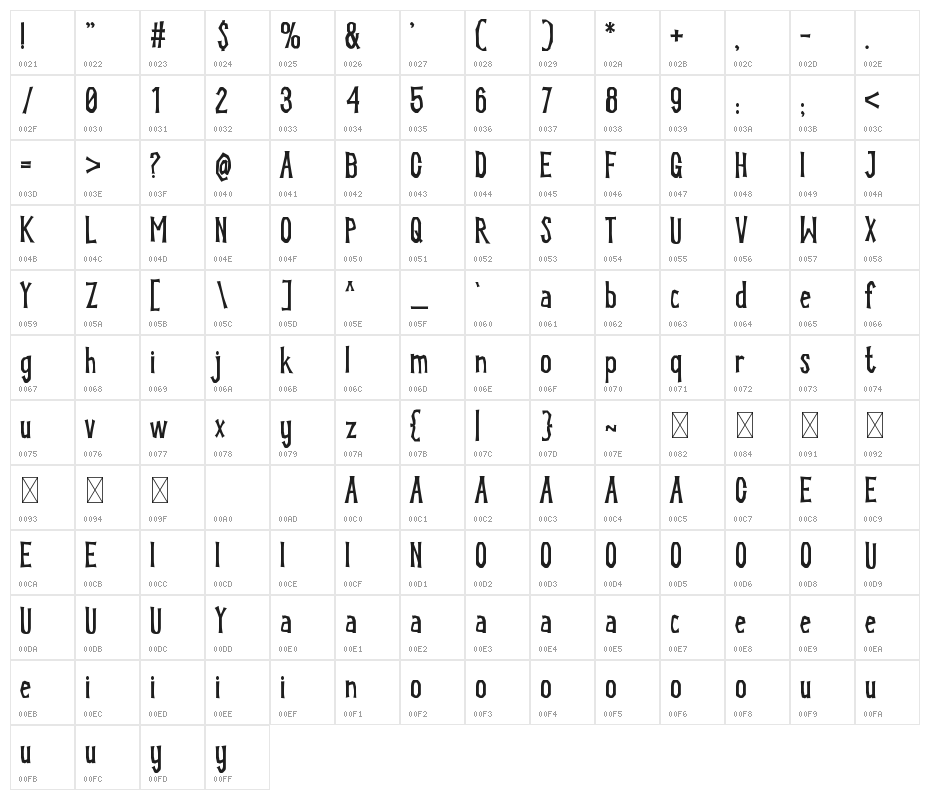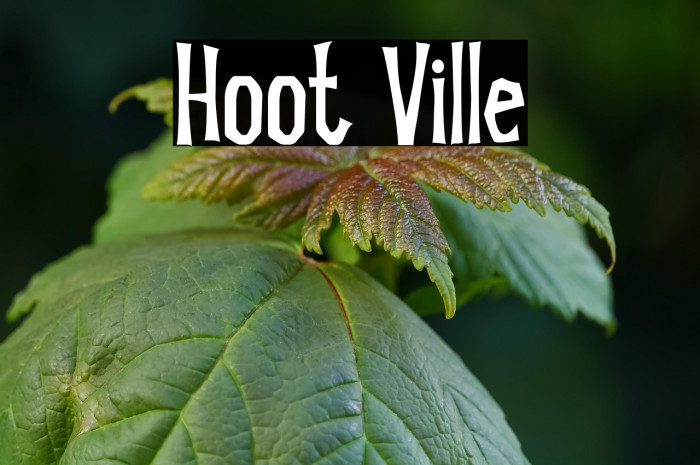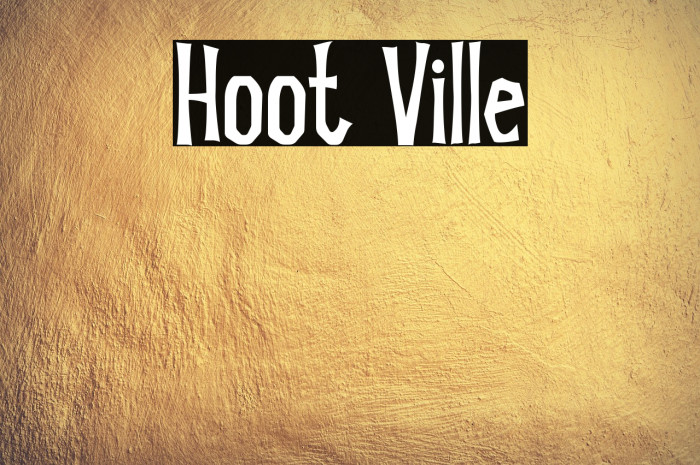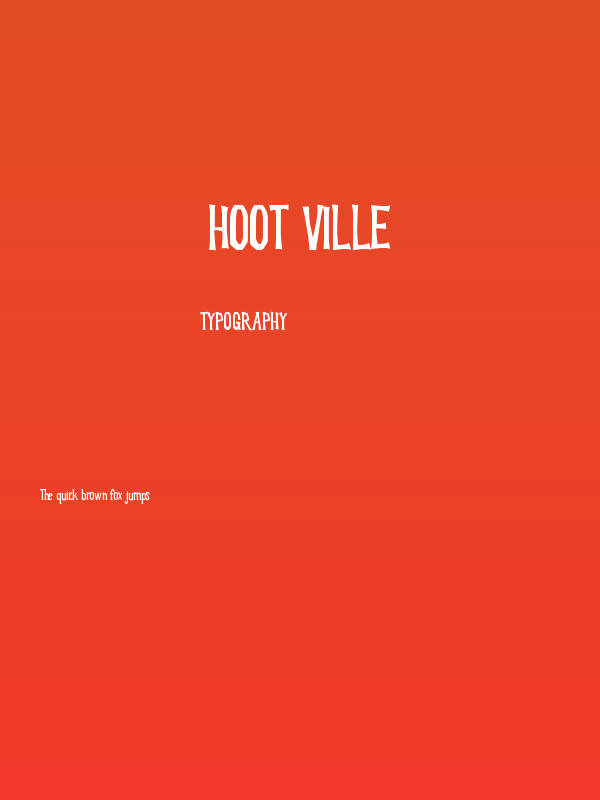
Hoot Ville Font
Hoot Ville Description
This font features a playful and quirky design with irregular, hand-drawn letterforms that give it a whimsical and informal appearance. The characters are slightly uneven, with varying stroke widths that add to its charm and uniqueness. The uppercase and lowercase letters maintain a consistent style, while the numbers and special characters complement the overall aesthetic. This font's distinctive look makes it ideal for creative and fun projects, where a touch of personality is desired.